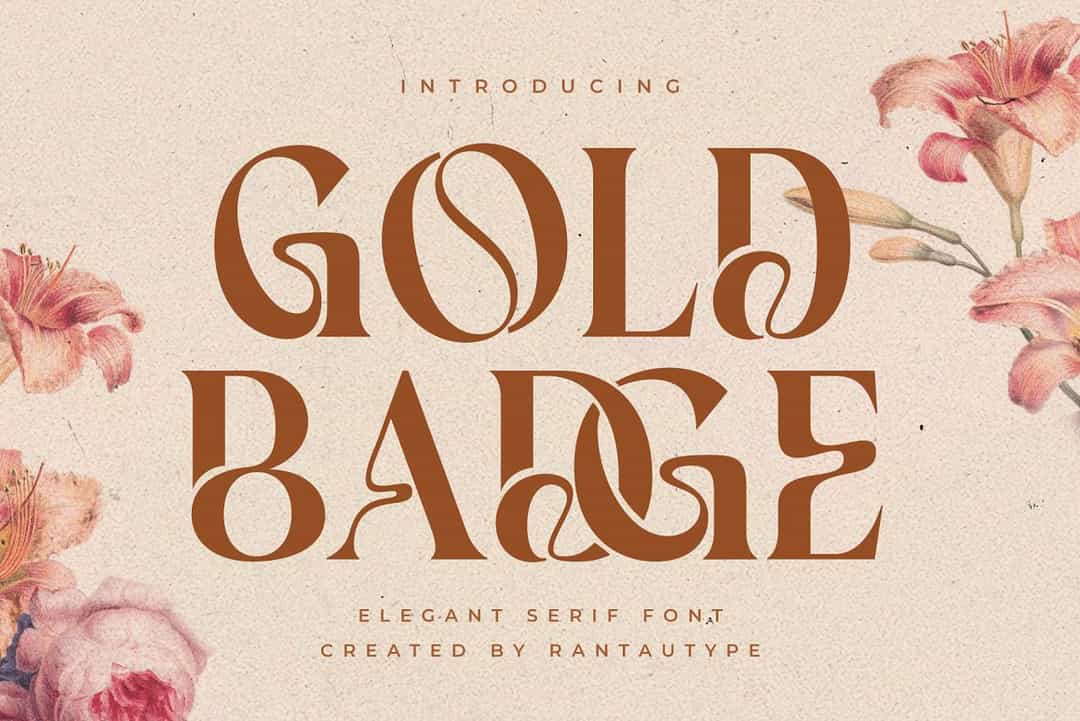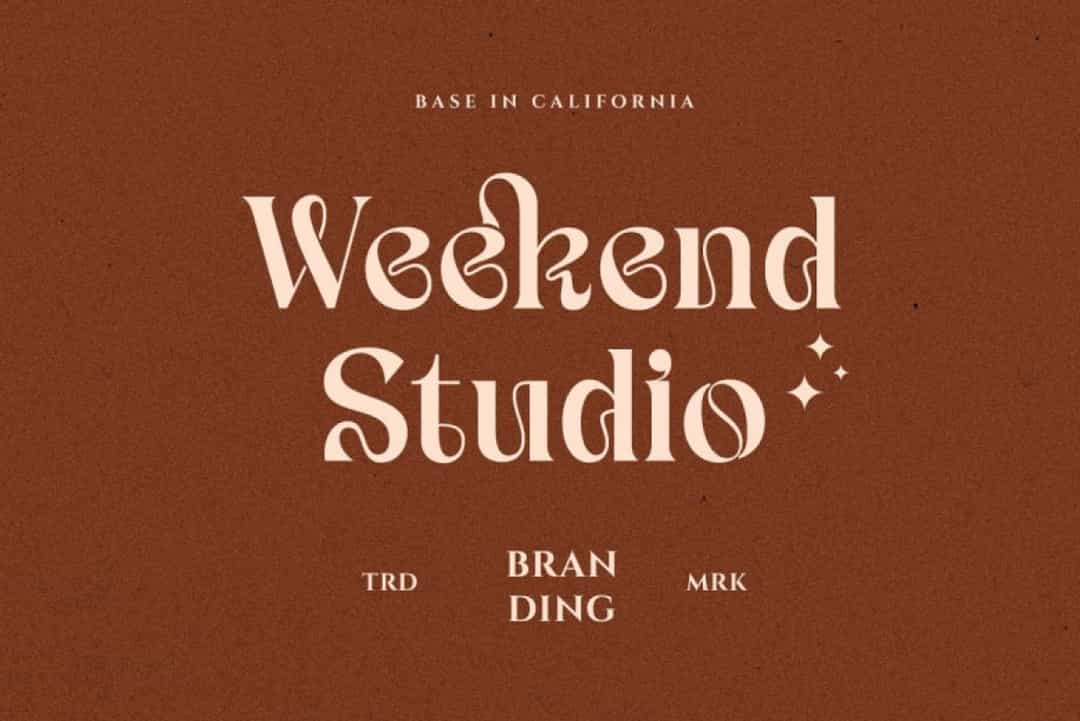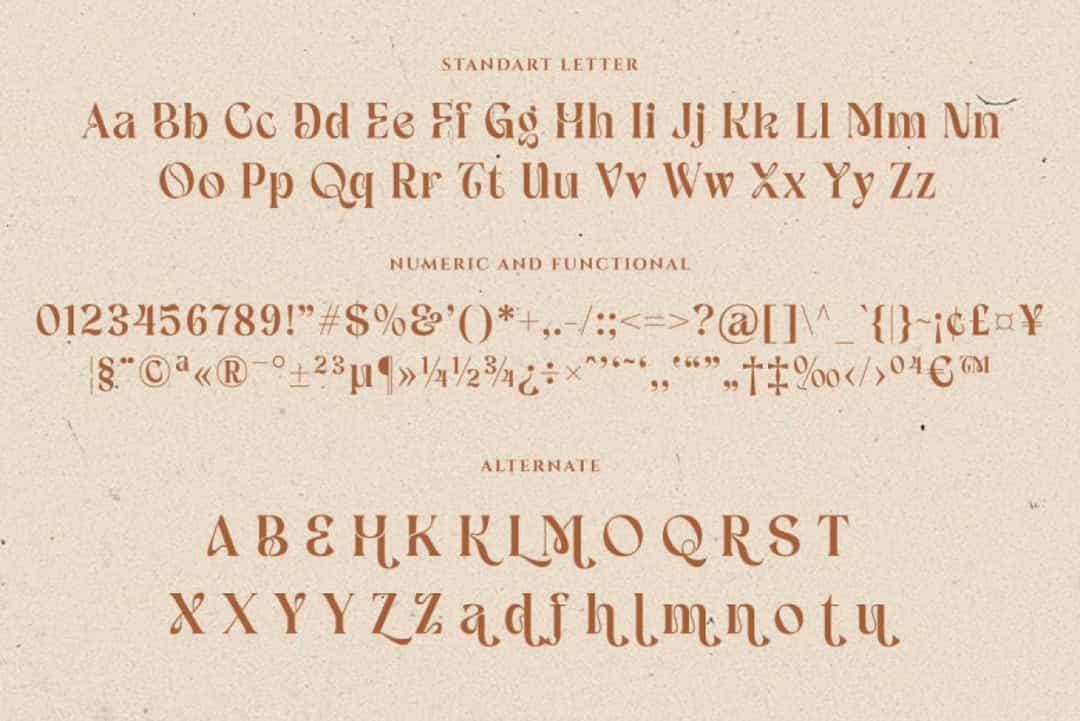
Gold Badge is a contemporary serif type with an eye-catching bold curve, making it look unique, elegant, stylish and flexible – featuring various alternatives and ligature which you can mix and maximize to create stunning displays. Additionally, GoldBadge supports multiple languages.